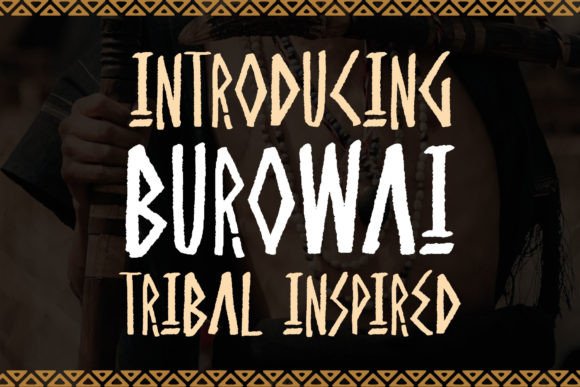
Introducing Burowai Font: A Unique Blend of Ancient Greek Letters and Tribal Ornaments
In the world of typography, fonts play a crucial role in conveying the tone and personality of a design. With the vast array of fonts available, it can be challenging to find one that stands out from the rest. However, if you’re looking for a font that combines the elegance of ancient Greek letters with the ruggedness of tribal ornaments, look no further than Burowai Font.
What is Burowai Font?
Burowai Font is a cool display font that draws inspiration from ancient Greek letters and tribal ornaments. This ethnic font is perfect for designers who want to add a touch of uniqueness to their designs. The font’s design is inspired by the shapes of tree branches, which are combined with rough strokes reminiscent of ancient symbols inscribed in caves.
The Inspiration Behind Burowai Font
The inspiration behind Burowai Font is rooted in the desire to create a font that captures the essence of ancient cultures. The font’s creator was inspired by the intricate designs found in ancient Greek letters and tribal ornaments. By combining these elements with the natural shapes of tree branches, the font’s creator was able to craft a unique and captivating font.
The rough strokes and textures found in Burowai Font are reminiscent of ancient symbols inscribed in caves. This adds a sense of ruggedness and authenticity to the font, making it perfect for designs that require a touch of adventure and exploration.
Characteristics of Burowai Font
Burowai Font is a display font that boasts a range of characteristics that make it perfect for various design projects. Some of the key characteristics of Burowai Font include:
- Unique blend of ancient Greek letters and tribal ornaments: Burowai Font combines the elegance of ancient Greek letters with the ruggedness of tribal ornaments, creating a unique and captivating font.
- Inspired by natural shapes: The font’s design is inspired by the shapes of tree branches, which adds a sense of organic and natural beauty to the font.
- Rough strokes and textures: The font features rough strokes and textures that are reminiscent of ancient symbols inscribed in caves, adding a sense of ruggedness and authenticity.
- Perfect for folk, tribal, and adventure-themed designs: Burowai Font is perfect for designs that require a touch of adventure, exploration, and cultural heritage.
Uses of Burowai Font
Burowai Font is a versatile font that can be used for a range of design projects. Some of the most popular uses of Burowai Font include:
- Folk and tribal designs: Burowai Font is perfect for designs that require a touch of cultural heritage and tradition.
- Adventure and exploration designs: The font’s rugged and adventurous feel makes it perfect for designs that require a sense of exploration and discovery.
- Logos and branding: Burowai Font can be used to create unique and captivating logos and branding materials.
- Posters and flyers: The font’s bold and eye-catching design makes it perfect for posters and flyers.
Tips for Using Burowai Font
To get the most out of Burowai Font, here are some tips to keep in mind:
- Use it sparingly: Burowai Font is a bold and eye-catching font, so it’s best to use it sparingly to avoid overwhelming the design.
- Pair it with a simple font: Pairing Burowai Font with a simple font can help to create a balanced and harmonious design.
- Experiment with different colors: Burowai Font looks great in a range of colors, so don’t be afraid to experiment and find the perfect color scheme for your design.
Burowai Font is a unique and captivating font that combines the elegance of ancient Greek letters with the ruggedness of tribal ornaments. With its inspiration from natural shapes and rough strokes, this font is perfect for designs that require a touch of adventure, exploration, and cultural heritage. Whether you’re working on a folk, tribal, or adventure-themed design, Burowai Font is sure to make a statement.